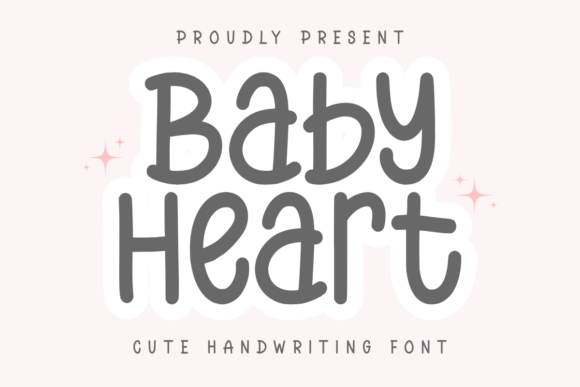
Crafting Love with the Baby Heart Font
Do you remember the rush of excitement you felt as a new mom, decorating your baby’s nursery and planning their first birthday party? For me, it’s those little creative moments that bring the most joy – designing a onesie, making a handmade card, or crafting a special keepsake. It’s in these moments that I fall in love with the beauty of handwritten fonts, and the Baby Heart Font is one of my favorites.
Perfect for planners, stickers, cards, quotes, and craft projects, the Baby Heart Font is a sweet and playful handwriting font that’s sure to bring a smile to anyone’s face. Whether you’re a creative mom looking for inspiration or a designer seeking a versatile font, the Baby Heart Font is a valuable addition to your toolkit. Its charm and character make it ideal for DIY projects, journaling, and Cricut crafts.
Baby Heart Font Key Features
- Unique Characteristics: Features a whimsical, handwritten style with subtle imperfections, perfect for creating a personal and childlike feel
- Kerning and Ligatures: Includes advanced kerning and ligature pairs for smooth and professional text rendering
Baby Heart Font Review
I recently had the chance to work with the Baby Heart Font, and I must say it’s a unique and endearing choice for designers looking for a playful, hand-drawn feel.
- Characteristics of hand-drawn, whimsical feel that is perfect for children’s content
- Customizable in various weights and styles, making it suitable for different design contexts
- The font’s irregularities and imperfections give it a charming, human touch
- The font may not be suitable for formal or professional projects due to its playful nature
- The inconsistent spacing and letterforms may cause readability issues in certain situations
- The font’s limited language support may be a concern for designers working on multilingual projects
The Baby Heart Font is a delightful addition to any designer’s toolkit, but it’s essential to use it thoughtfully and consider the context of your project. While it excels in playful and whimsical applications, its limitations should be taken into account when working on more formal or complex designs.
Tips for Getting the Most Out of Baby Heart Font
Here are a few tips to help you get the most out of Baby Heart Font:
- Use it for baby-related projects, such as nursery decor, baby shower invitations, and baby announcement cards.
- Pair it with other playful fonts to create a fun and whimsical design.
- Experiment with different font sizes and colors to create a visually appealing design.
Here are a few common use cases for Baby Heart Font:
- Baby shower invitations and announcements.
- Nursery decor and wall art.
- Baby-related social
Alternatives to Baby Heart Font
Great Vibes Font is a beautiful, elegant script font perfect for creating a whimsical and romantic feel. It’s ideal for wedding invitations, baby shower invitations, and other special occasions. Great Vibes Font has a similar playful and cursive feel to Baby Heart Font, but with a more refined and sophisticated look.
Carolyna Pro Font is a modern script font with a touch of elegance and sophistication. It’s perfect for creating a stylish and luxurious feel, making it ideal for high-end branding, advertising, and packaging. Compared to Baby Heart Font, Carolyna Pro Font has a more modern and sleek look, with a wider range of styles and variations to choose from.
Playfair Display Font is a luxurious and elegant font perfect for creating a high-end and sophisticated look. It’s ideal for branding, advertising, and packaging, as well as for special occasions like weddings and anniversaries. Playfair Display Font has a more formal and traditional feel compared to Baby Heart Font, but still conveys a sense of elegance and refinement.